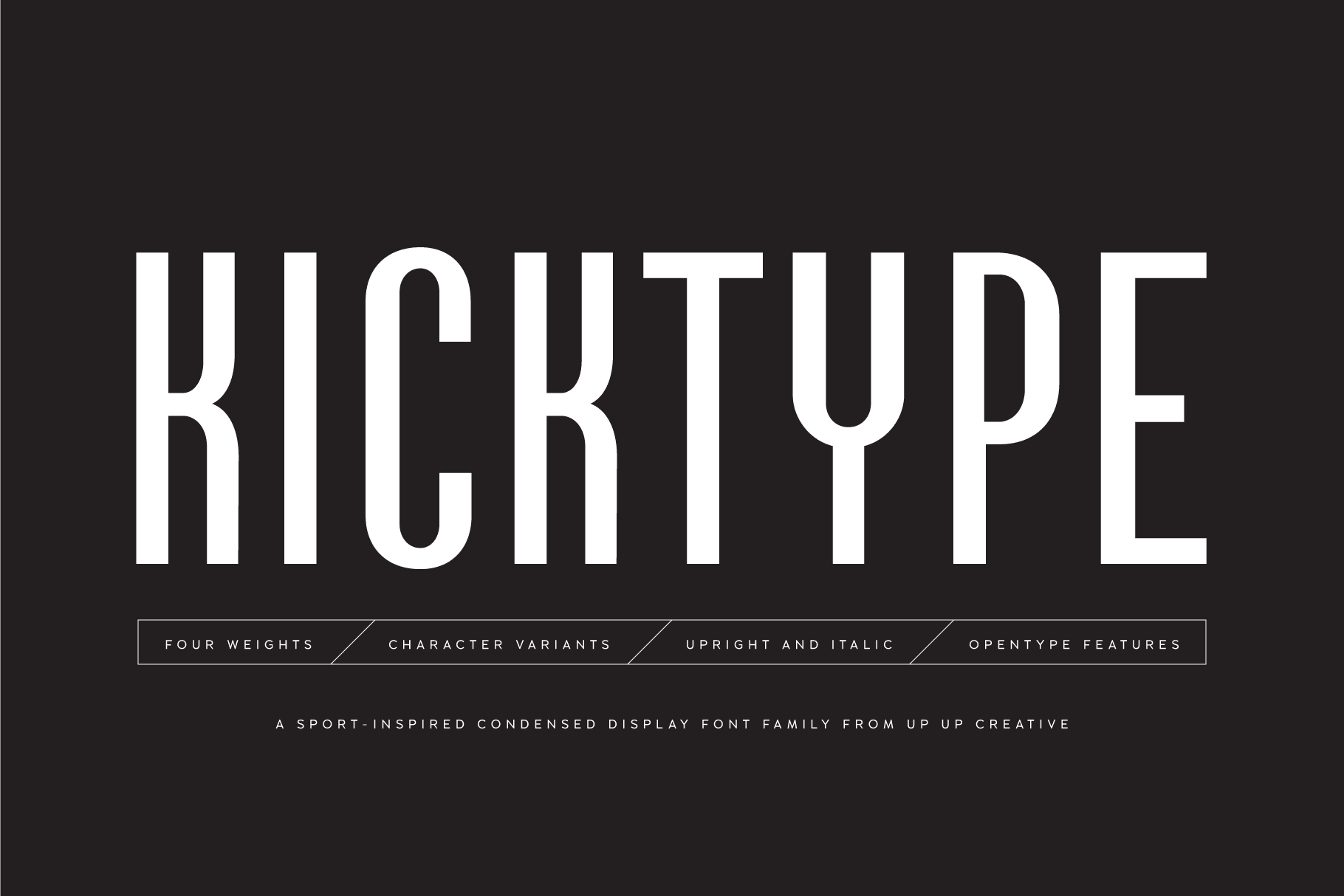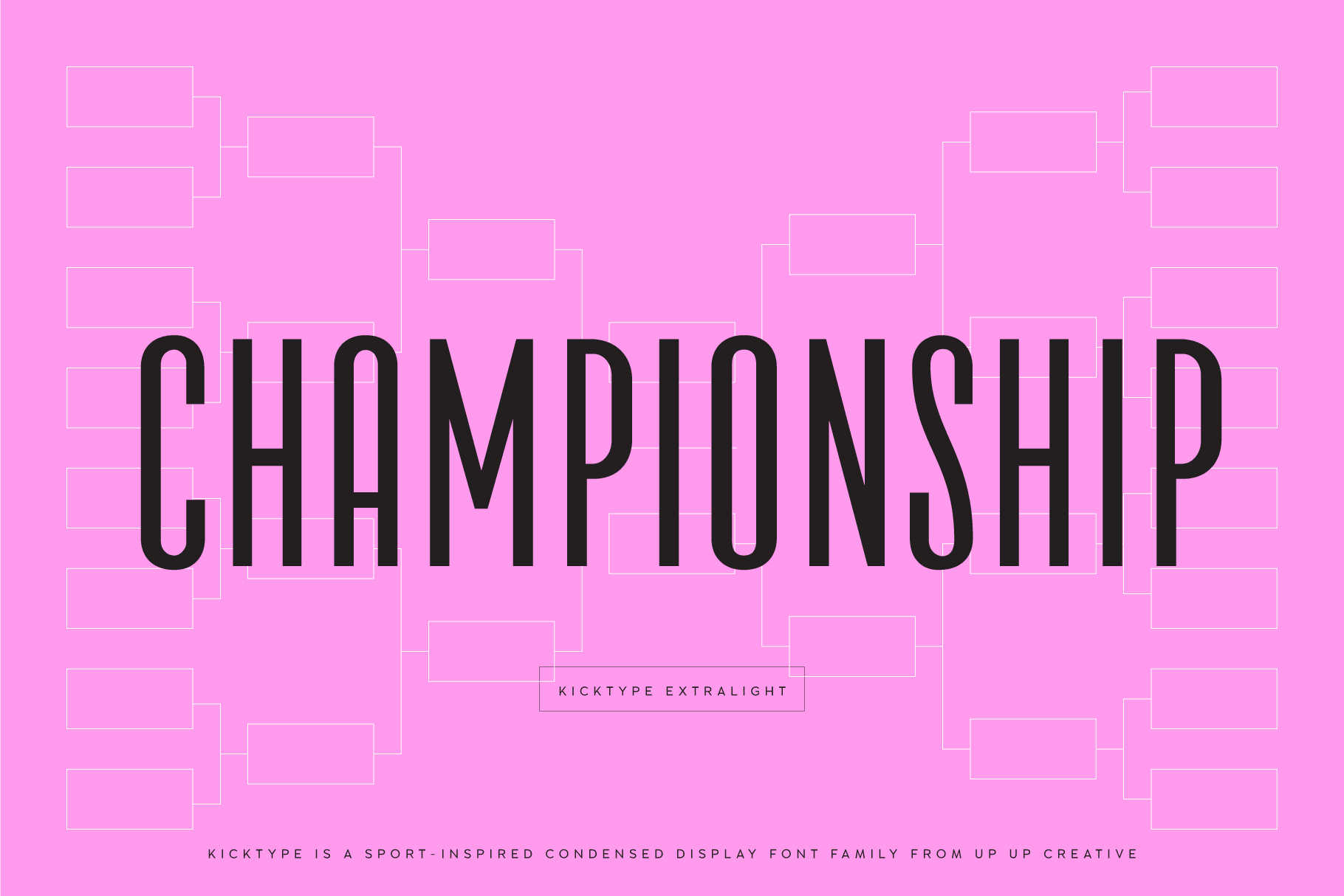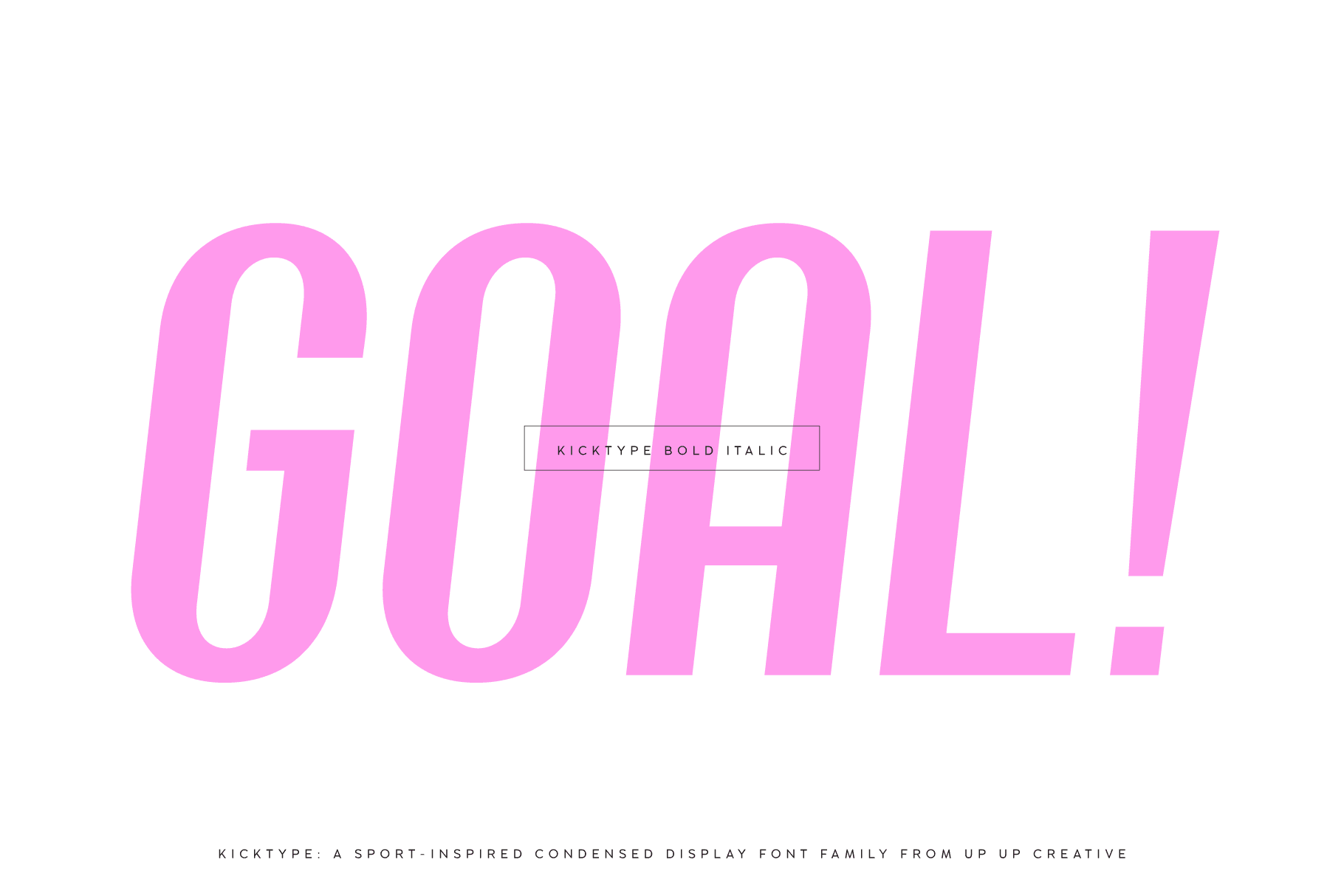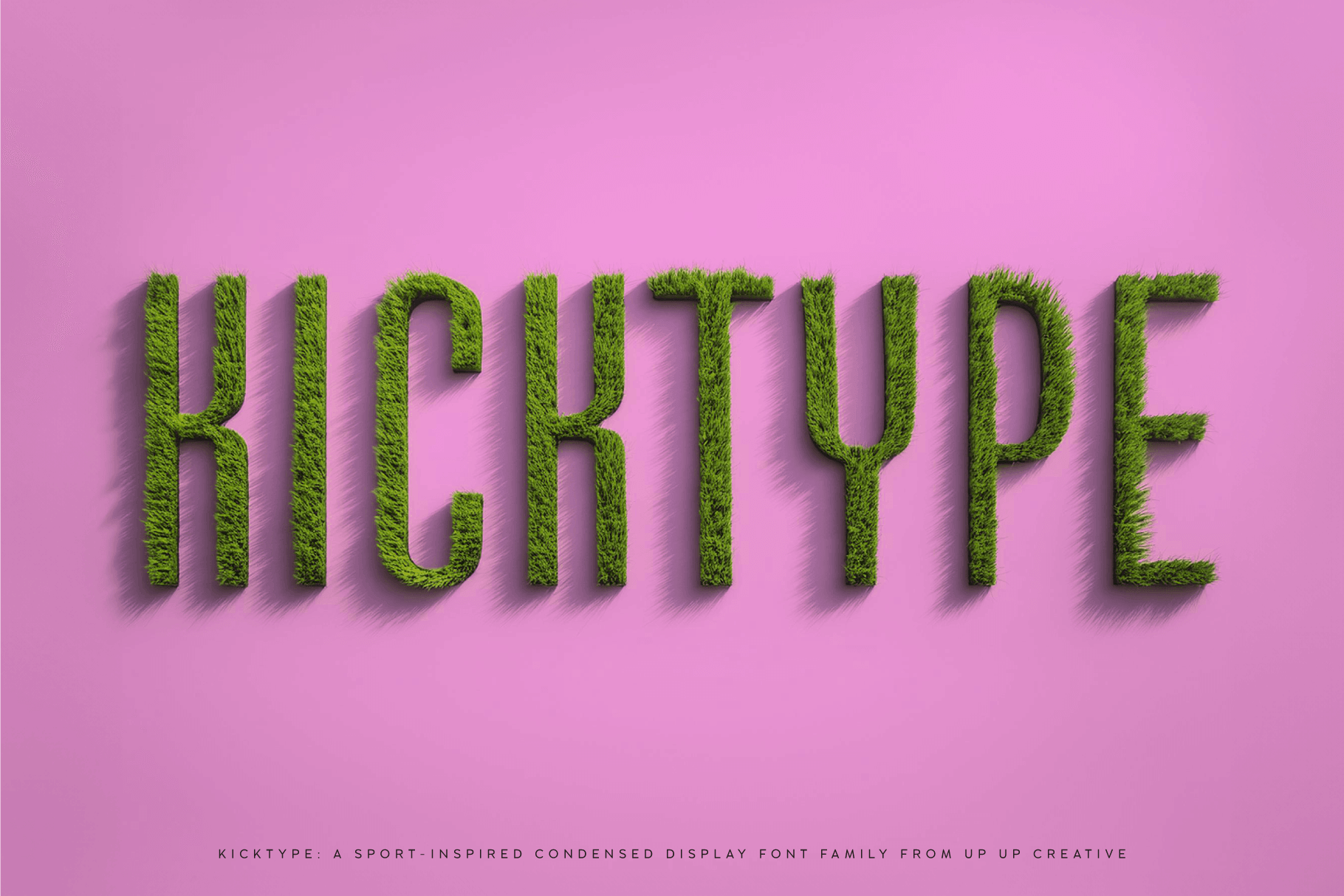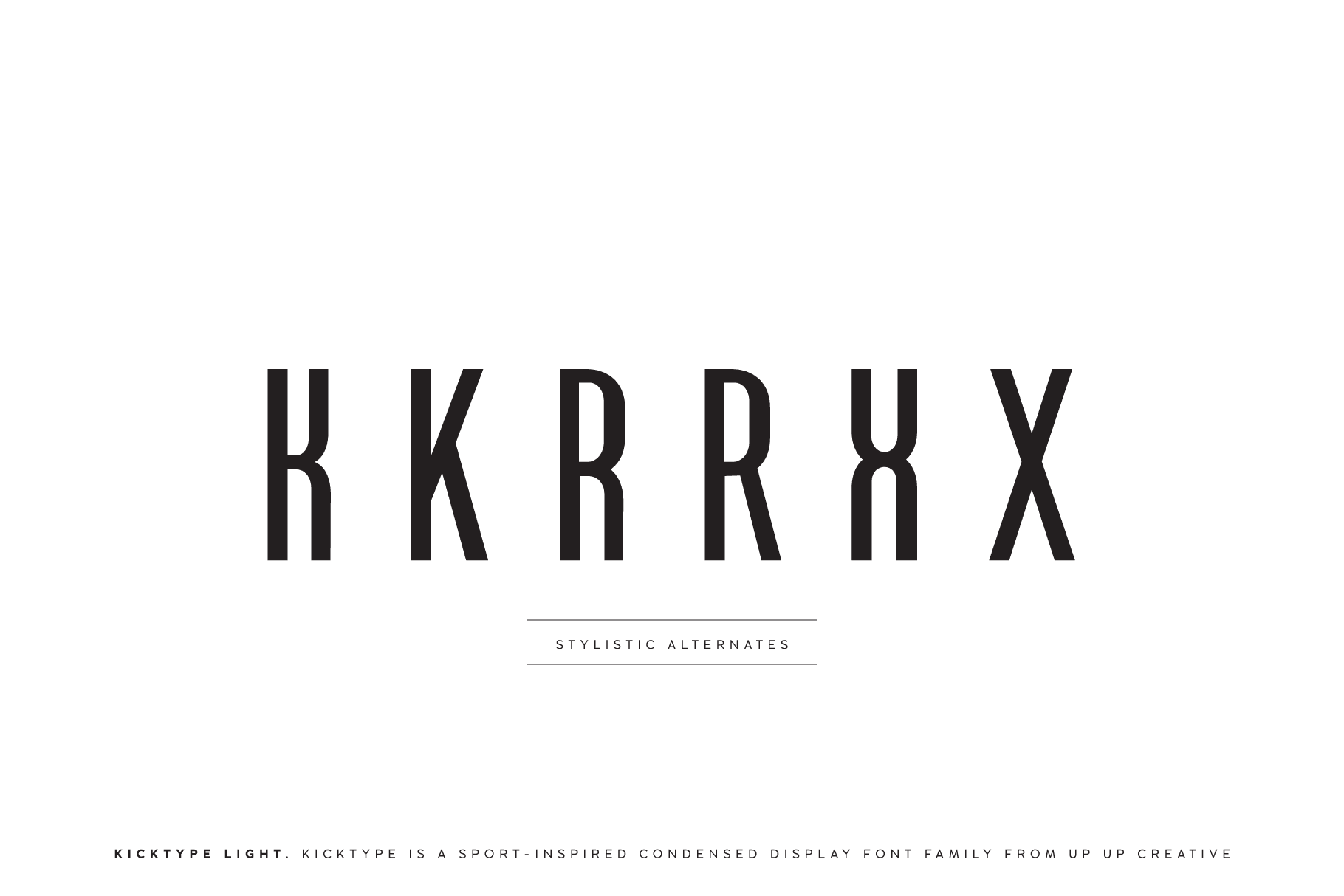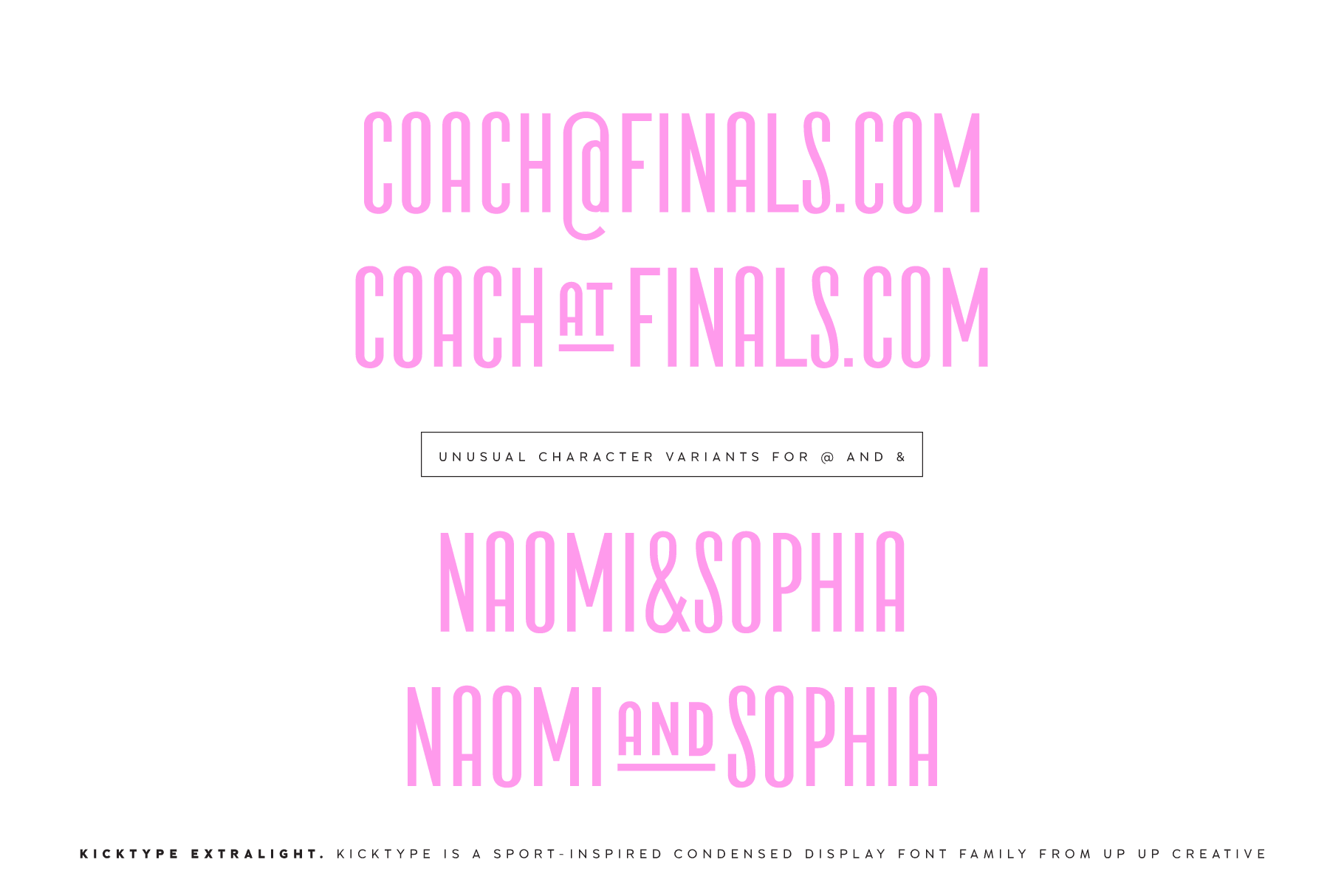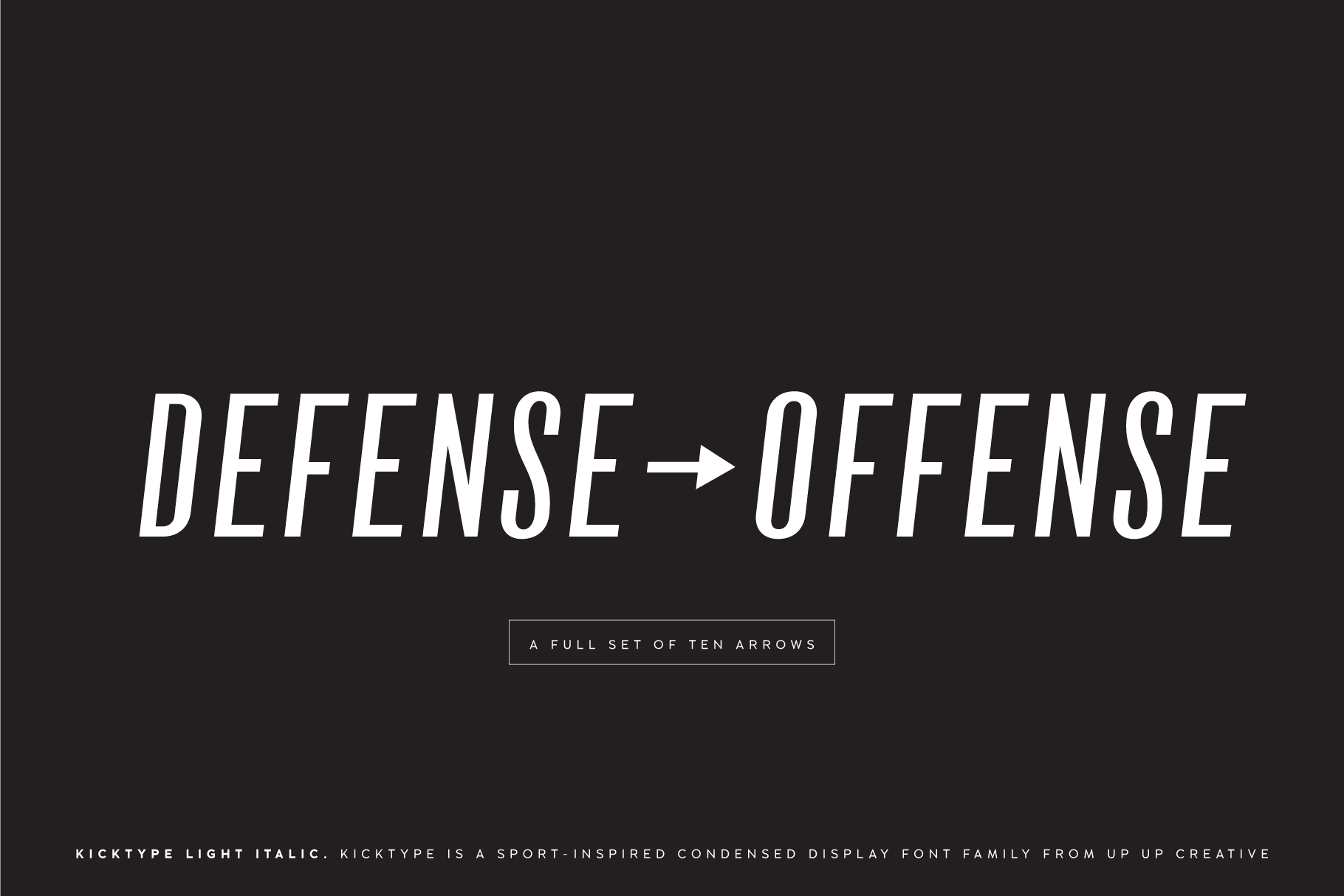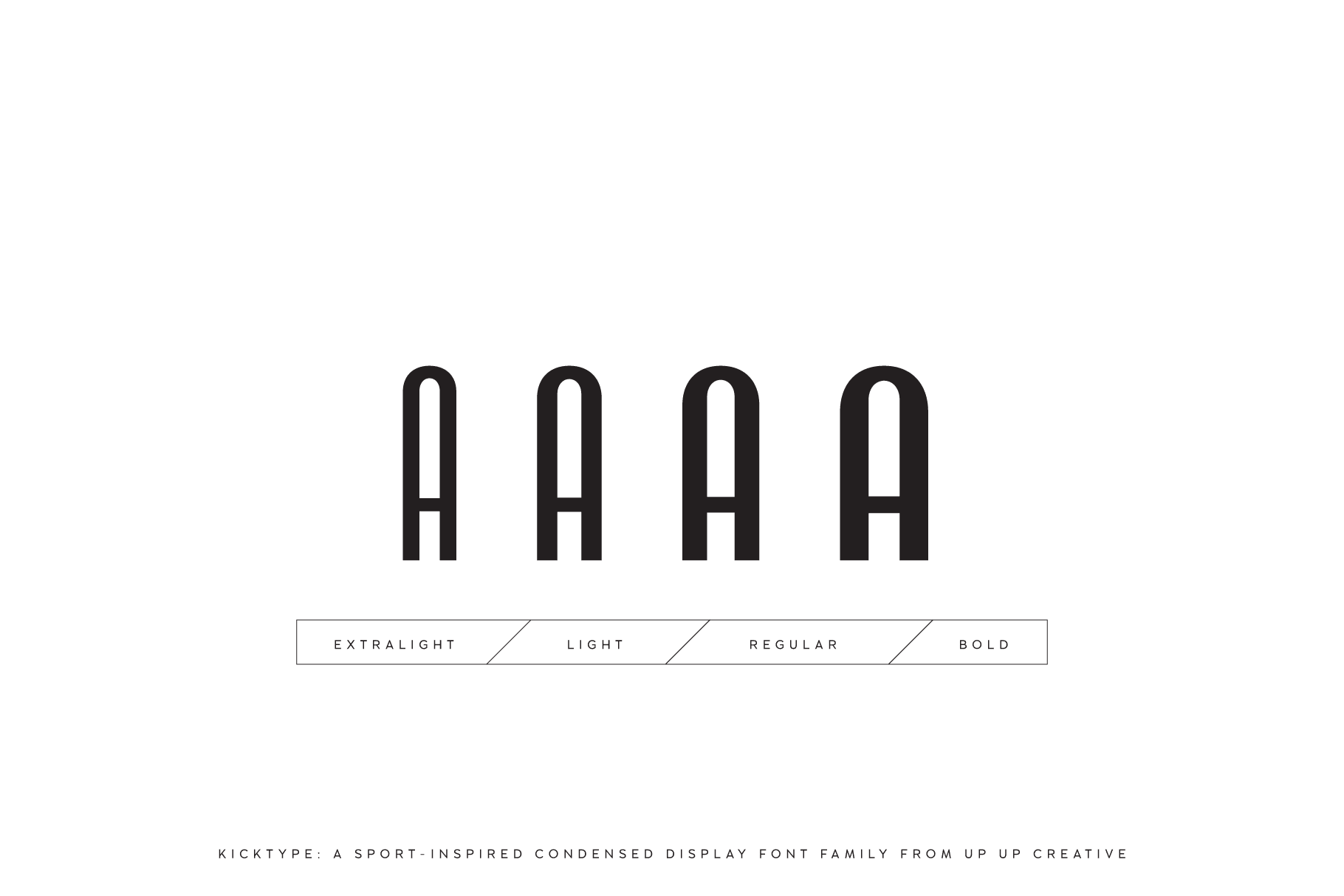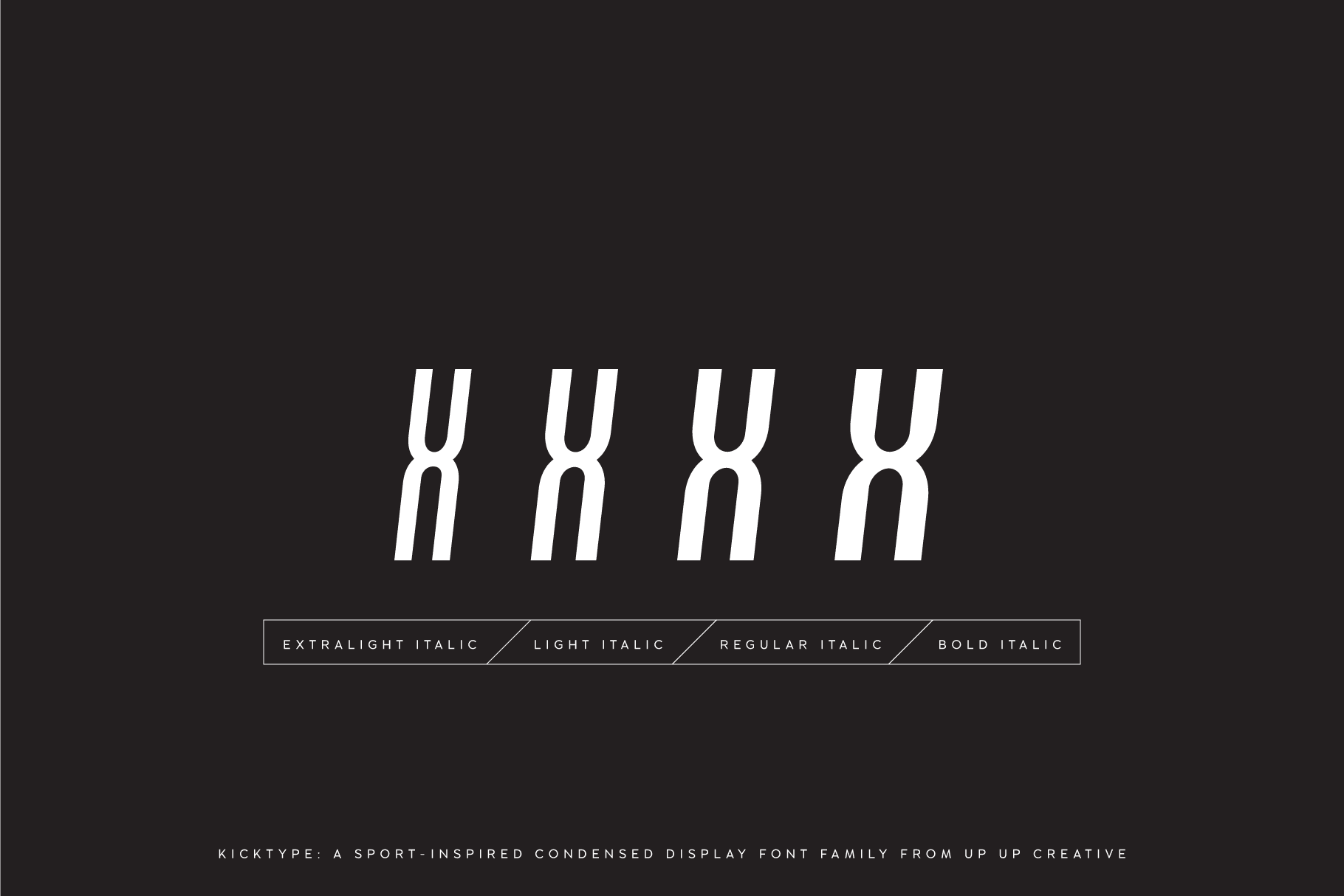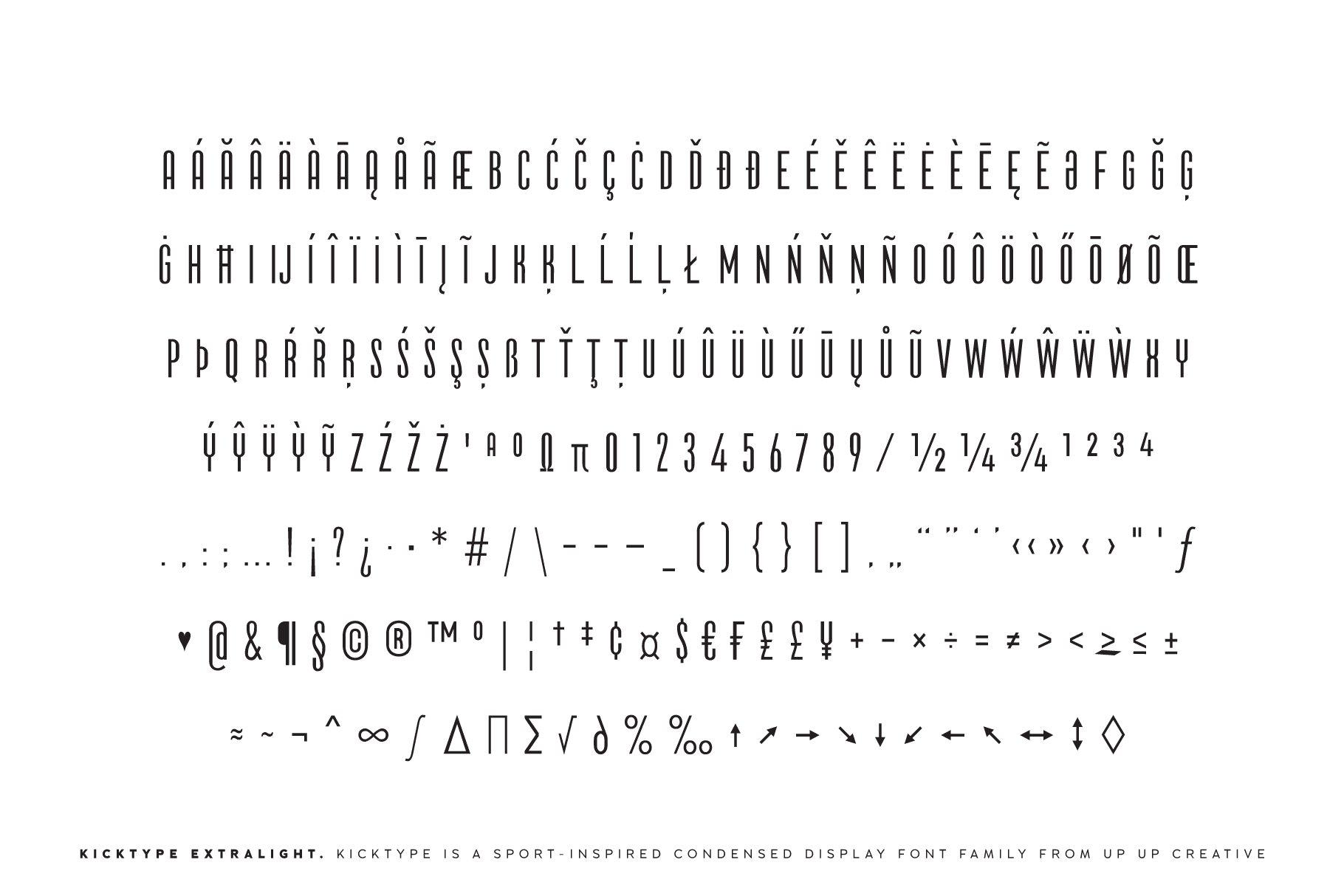
Kicktype, a Sport-Inspired Condensed Sans Serif Font Family
Meet Kicktype, a sport-inspired condensed font family from Up Up Creative. With its strong, geometric letters and exceptional legibility, Kicktype is perfect for any application where you need to stand out. Available in both upright & italic styles, Kicktype offers versatility for designing sports jerseys, posters, banners, and merchandise. Maximize space without sacrificing readability and equip your projects with a professional, eye-catching look.
Kicktype includes the following OpenType features:
- character variants
- fractions, ordinals, and superscripts
- localized forms (multi-language and multi-currency support)
- standard ligatures
- stylistic sets
Includes 2 ligatures
- Released in 2024
- Includes 408 glyphs
- 4 Weights, each in Upright and Italic